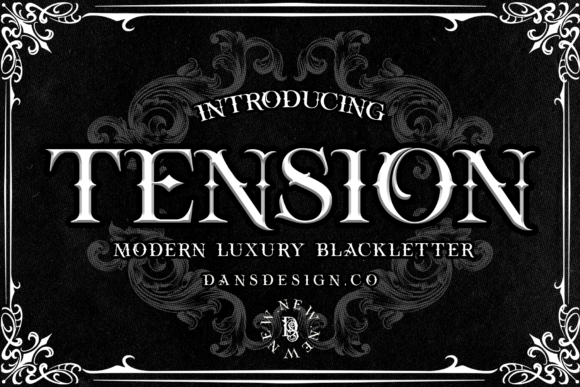
Introducing Tension Font - the perfect solution for your typography needs! Created by Dansdesign, this elegant and distinct blackletter font is the ultimate choice for anyone seeking to add an assertive feel to their next project.
Tension Font is not just any blackletter font - it's the best font for Retina Display. With its high level of detail, it's sure to make an impact on any digital platform. This makes it ideal for use on websites, blogs, and social media platforms.
But don't let its digital prowess fool you - Tension Font is also perfect for print media. It's incredibly versatile, with a wide spectrum of applications ranging from greeting cards to headlines. This makes it an ideal choice for designers, marketers, and anyone looking to make a lasting impression.
What sets Tension Font apart is its ability to evoke emotion. The bold and assertive design is perfect for conveying a sense of power, passion, and energy. It's sure to capture the attention of your audience and leave a lasting impression.
In summary, Tension Font is the ultimate choice for anyone looking for a blackletter font that is both versatile and captivating. It's perfect for both digital and print media and is guaranteed to add an assertive feel to your next project. Download Tension Font today and see the difference it can make!